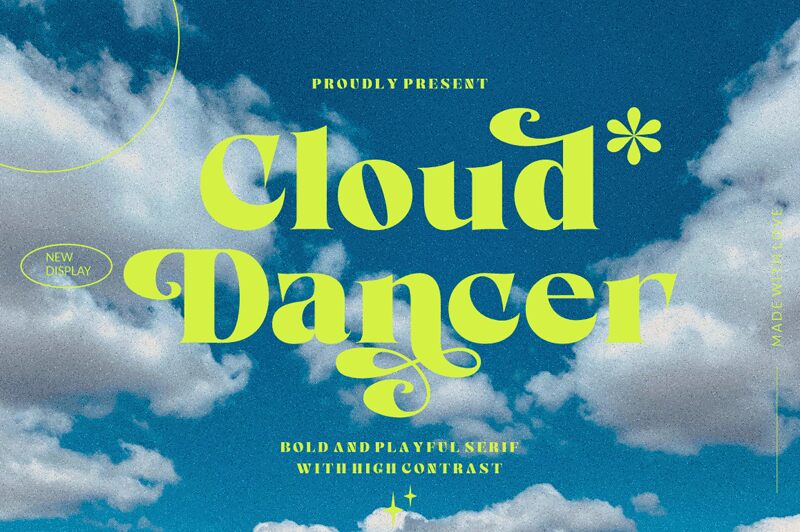
Cloud Dancer, designed by ReyreyBlue, is a striking and elegant extra-bold serif font with rich contrast. Its semi-expanded width adds a touch of sophistication and versatility to any project.
Perfect for fashion editorials or luxury brand logos, Cloud Dancer exudes confidence and refinement. With its bold strokes and graceful curves, this font captures attention and leaves a lasting impression. Whether used for magazine spreads or website headings, Cloud Dancer brings an air of opulence to any design endeavor.
Elevate your visual content with the distinctive allure of this extraordinary typeface.